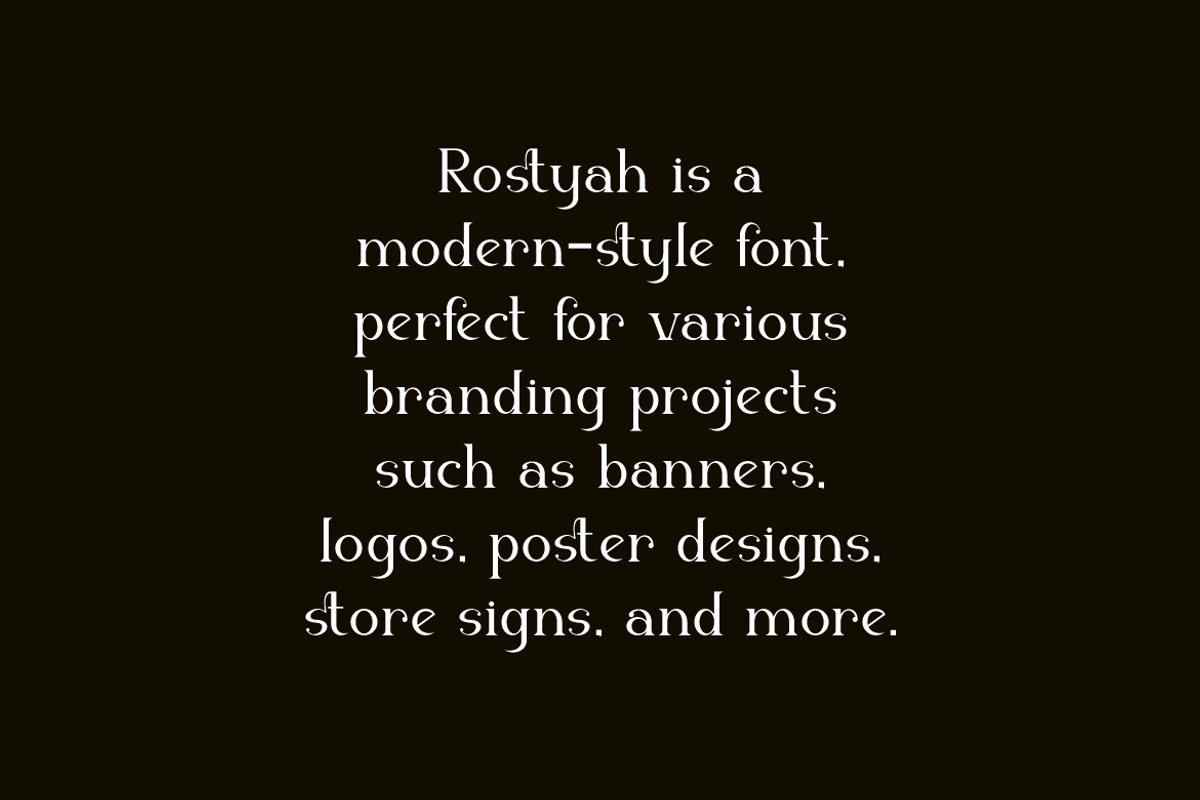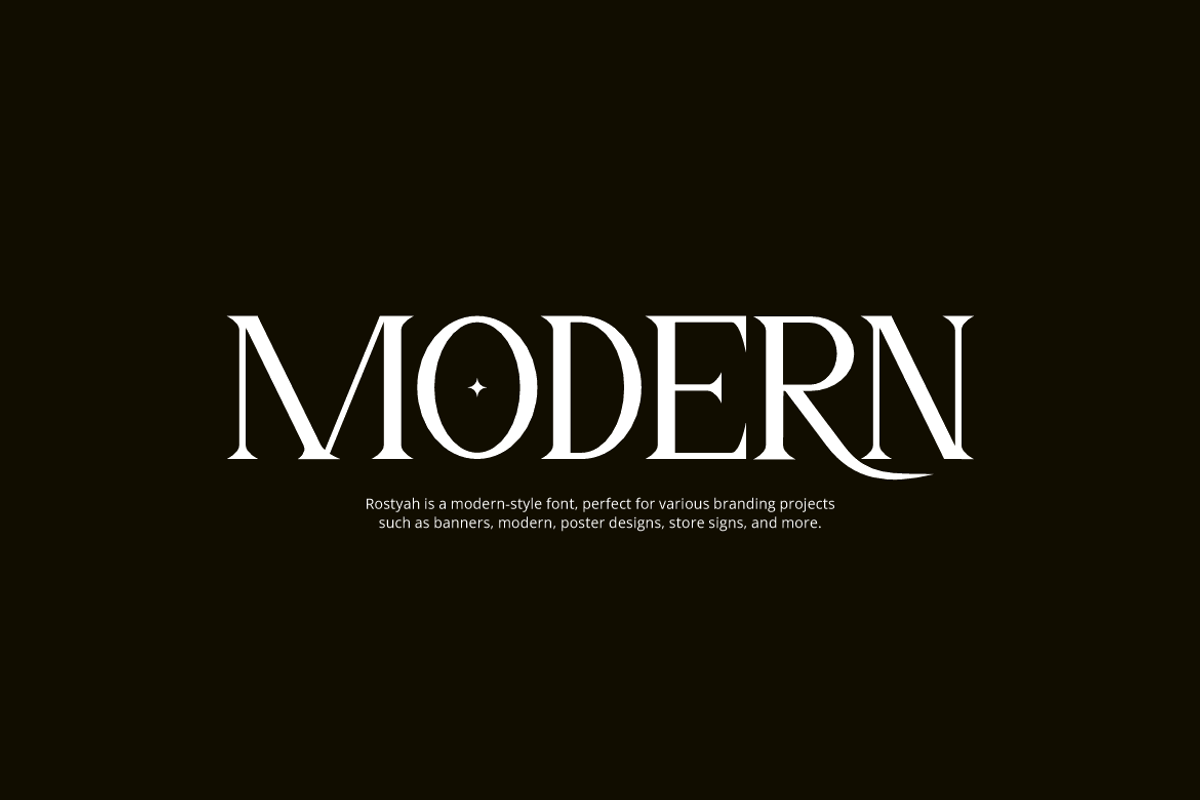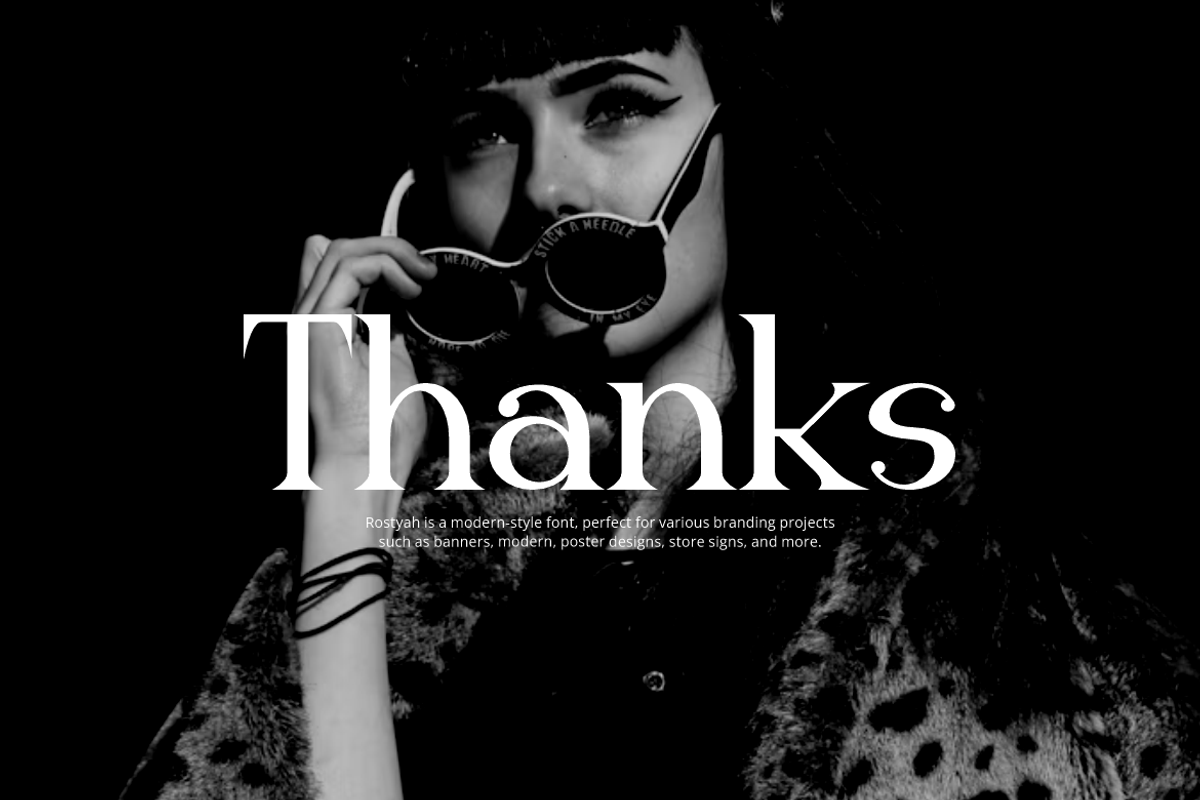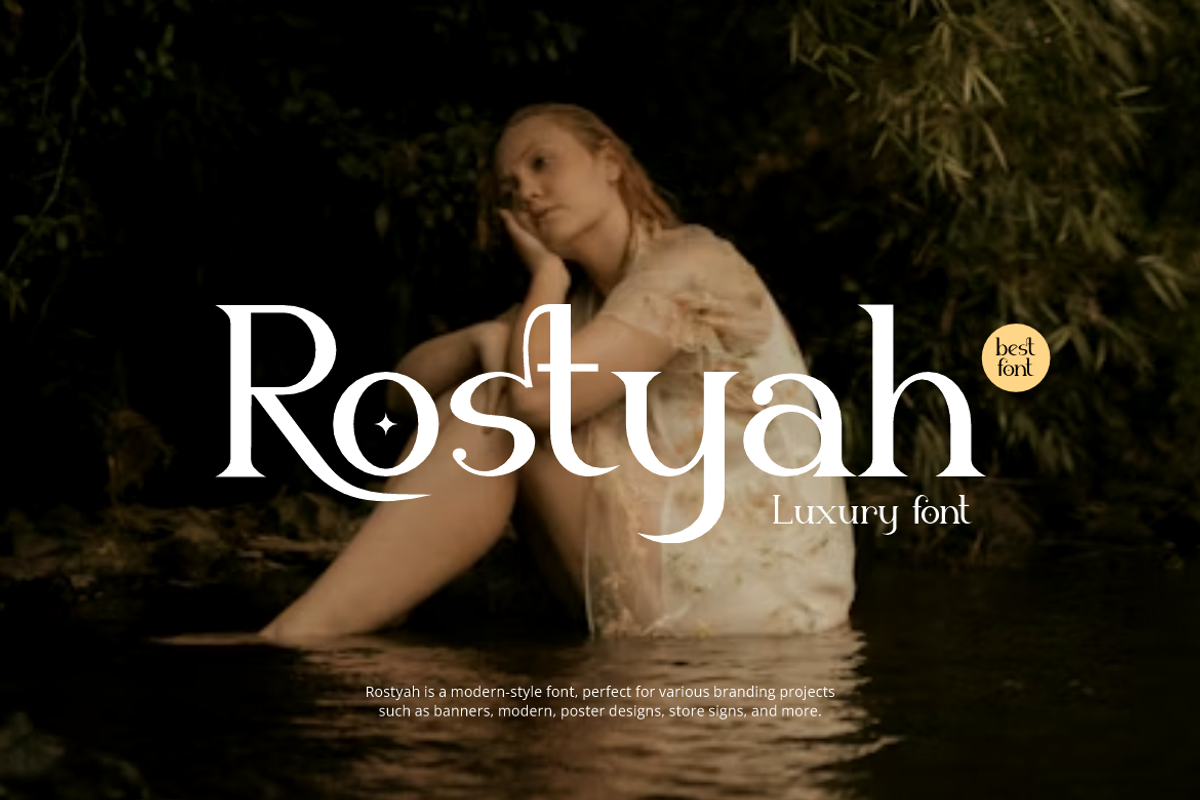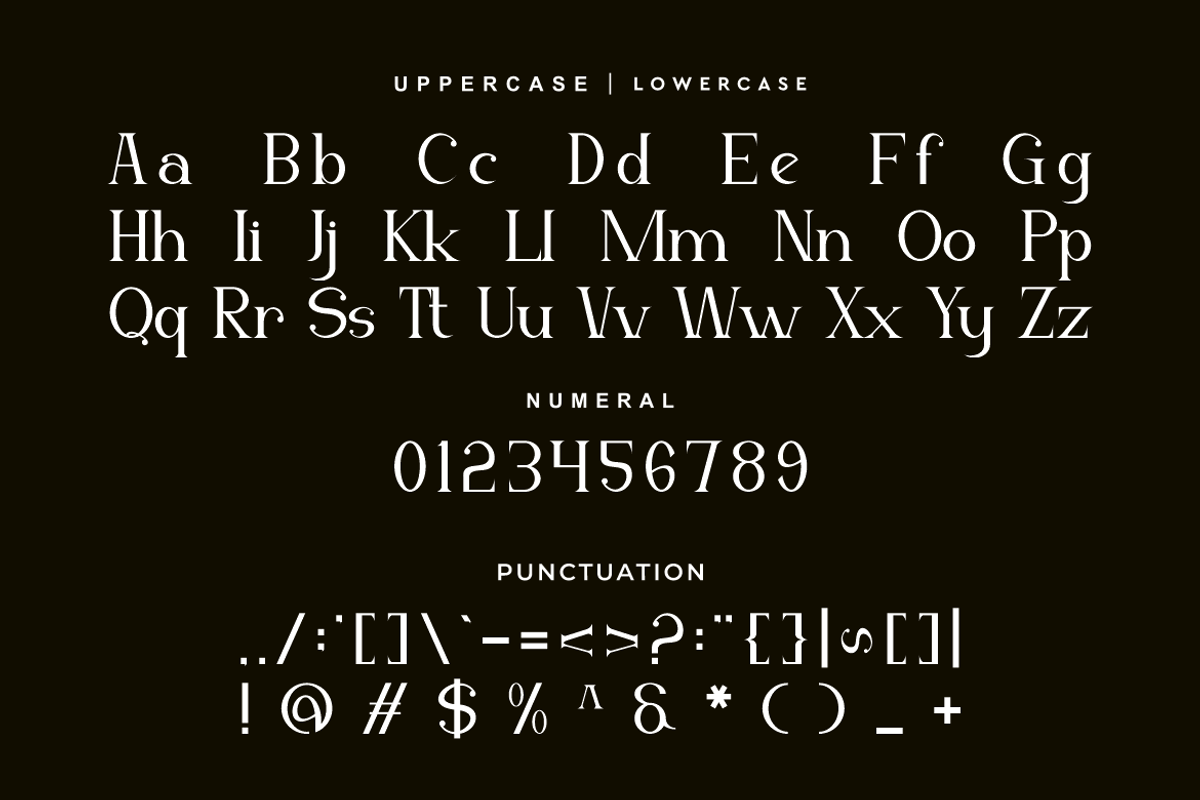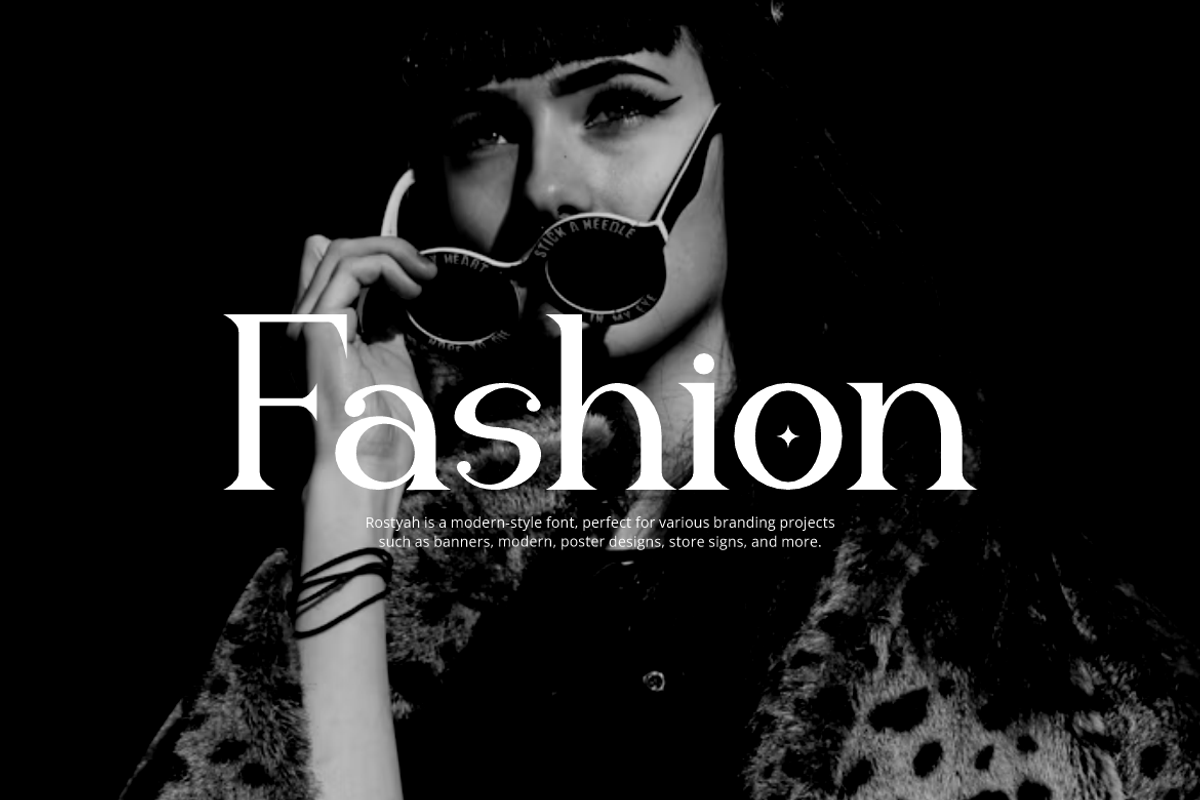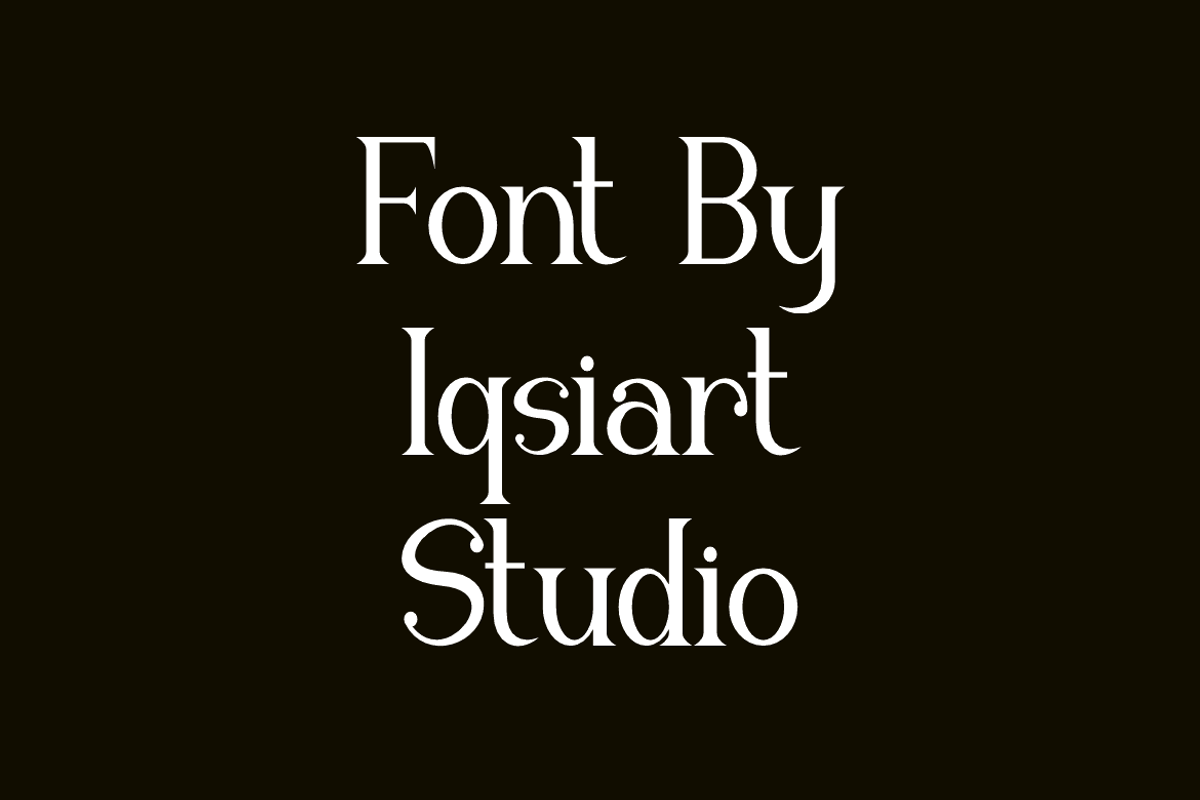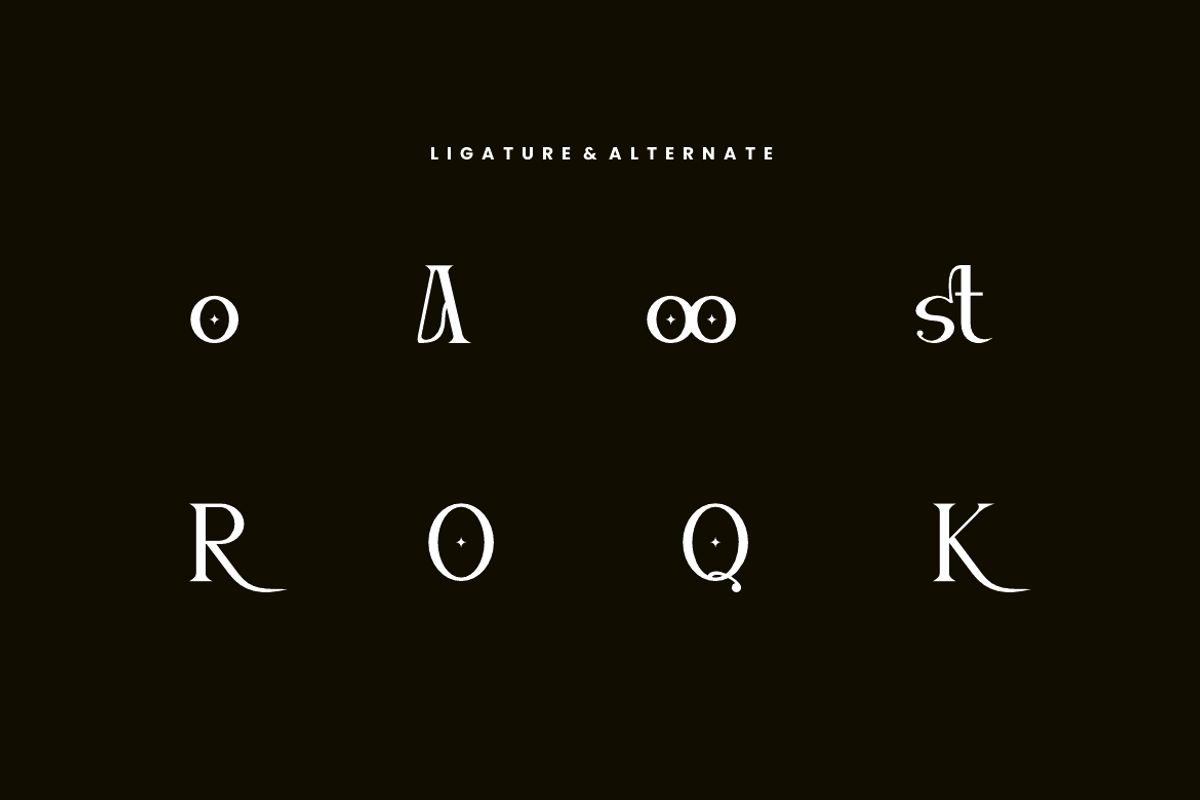
Rostyah - Elegant Serif Font
Rostyah Font is a serif and authentic display typeface that suits a variety of design needs. We offer a wide range of themes and font styles — visit our profile to explore more and find the perfect style for your project.